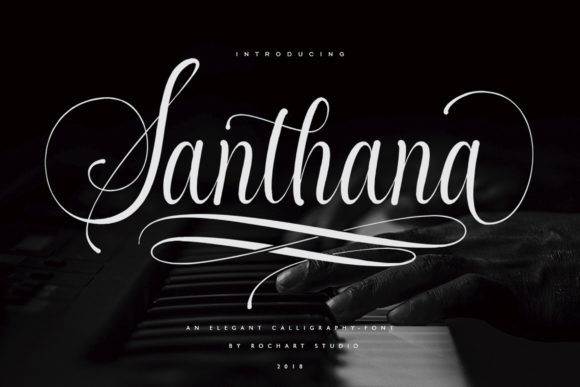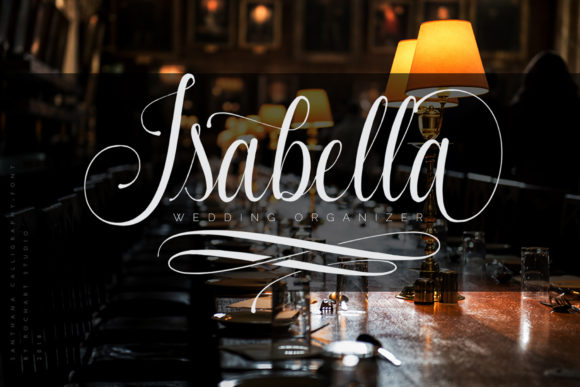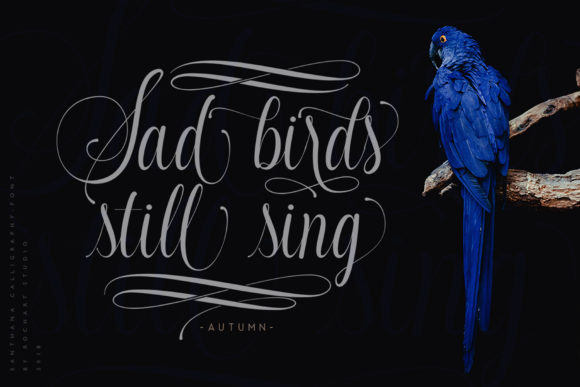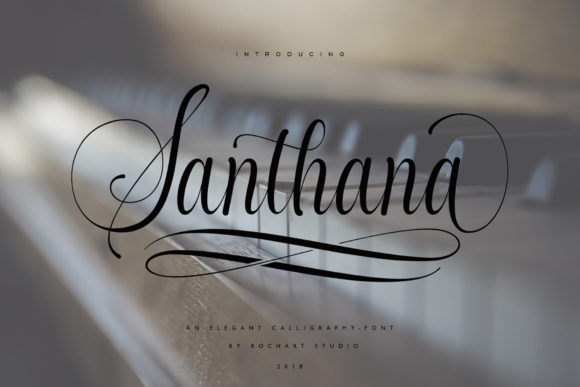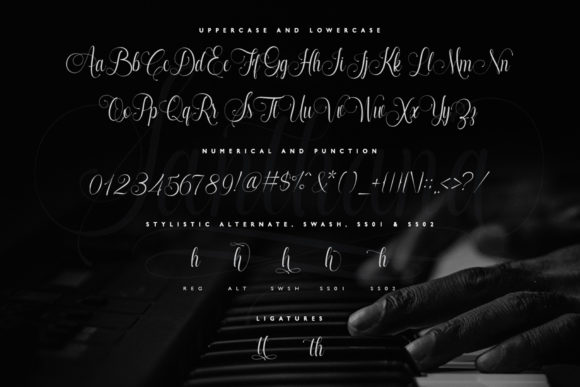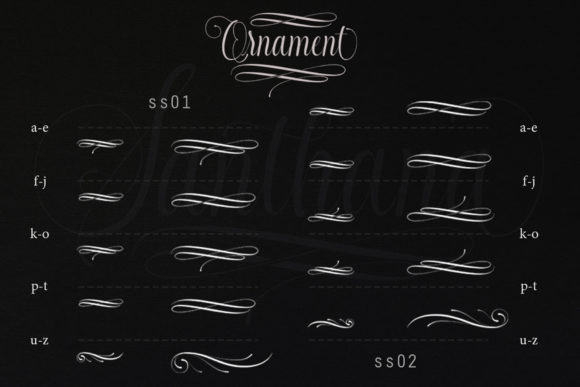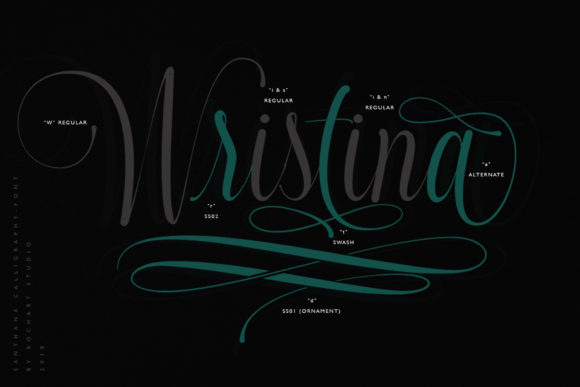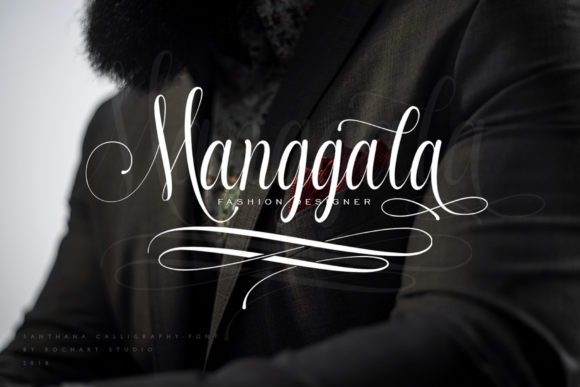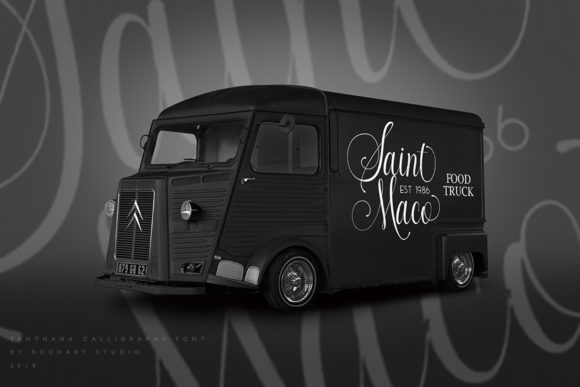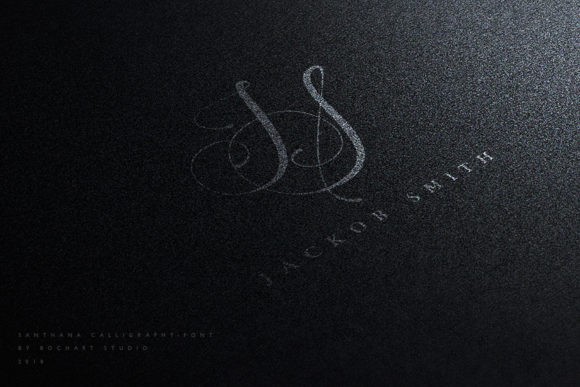
Santhana Font
About Santhana Font
The Santhana is an unique handwritten font. It includes amazing elegant swashes which can be used to give your design a more luxurious look.
It’s perfect for logo designs, t-shirts, flyers, apparel, packaging, advertising, wedding invitation, and every other design which needs to look upscale and chic.